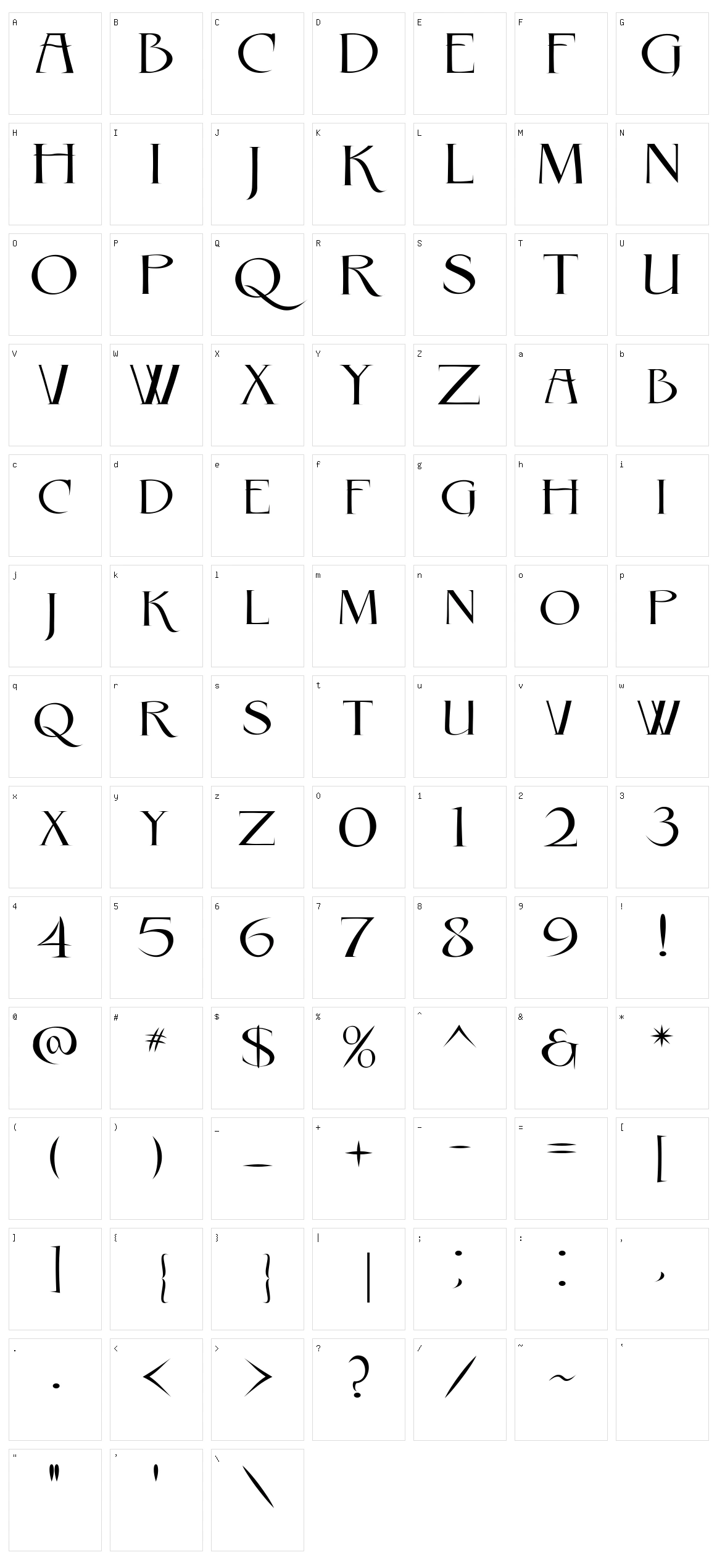
This is my attempt in making a font set. I have been so fascinated with fonts on TVs, advertisements, etc. So, I thought I would create a font set of my own. I created it in 2002 until now.
This isn't one of my first ones, I have done some typefaces in the past (I can't even find the files I did). Well, here it is -- the Rebel Font. I did this in the serif-style and in caps, both small and big as the small letters were giving me trouble. They were done in CorelDraw 11 (redid in X4), and fine-tuned in TypeTool. I hope you like it.